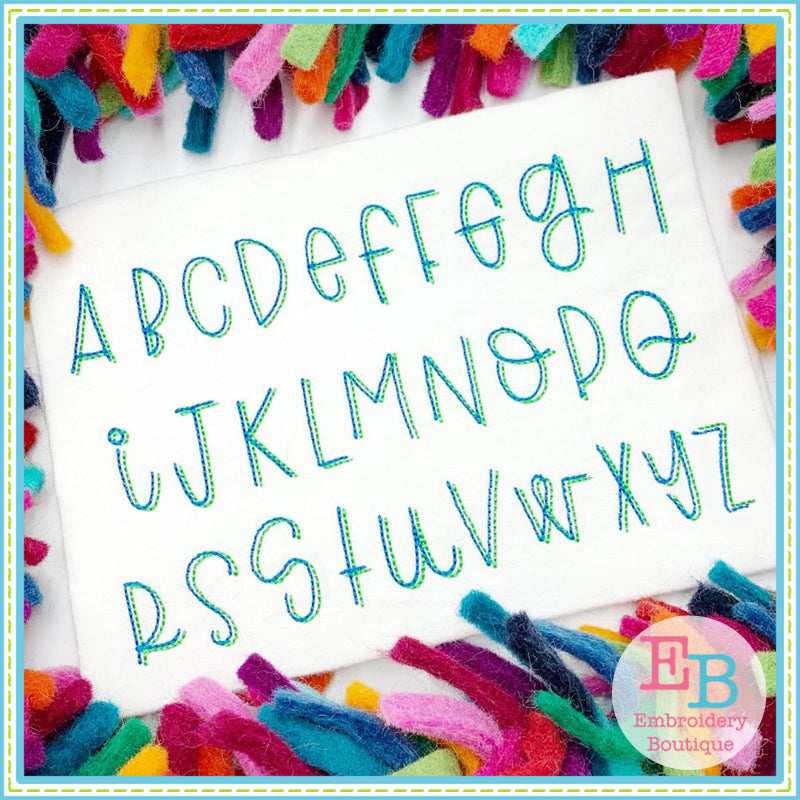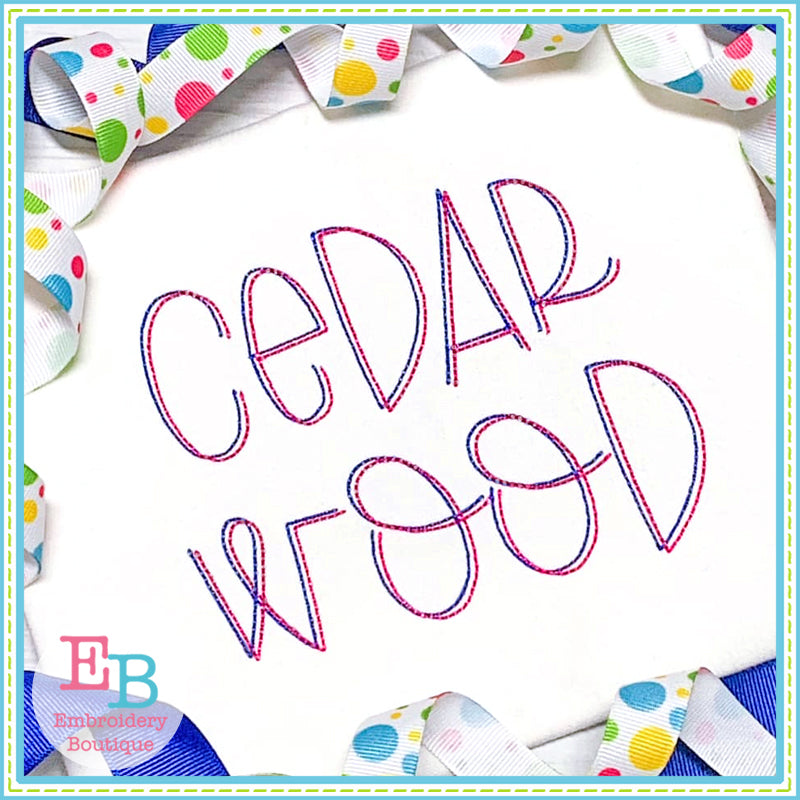
Cedar Wood Bean Stitch Embroidery Font
5 sizes of letters included. A variety of upper and lower case letters with a few alternates. There is not a capital and lower case letter for all 26 letters.
Each letter has two steps for the doubled look.